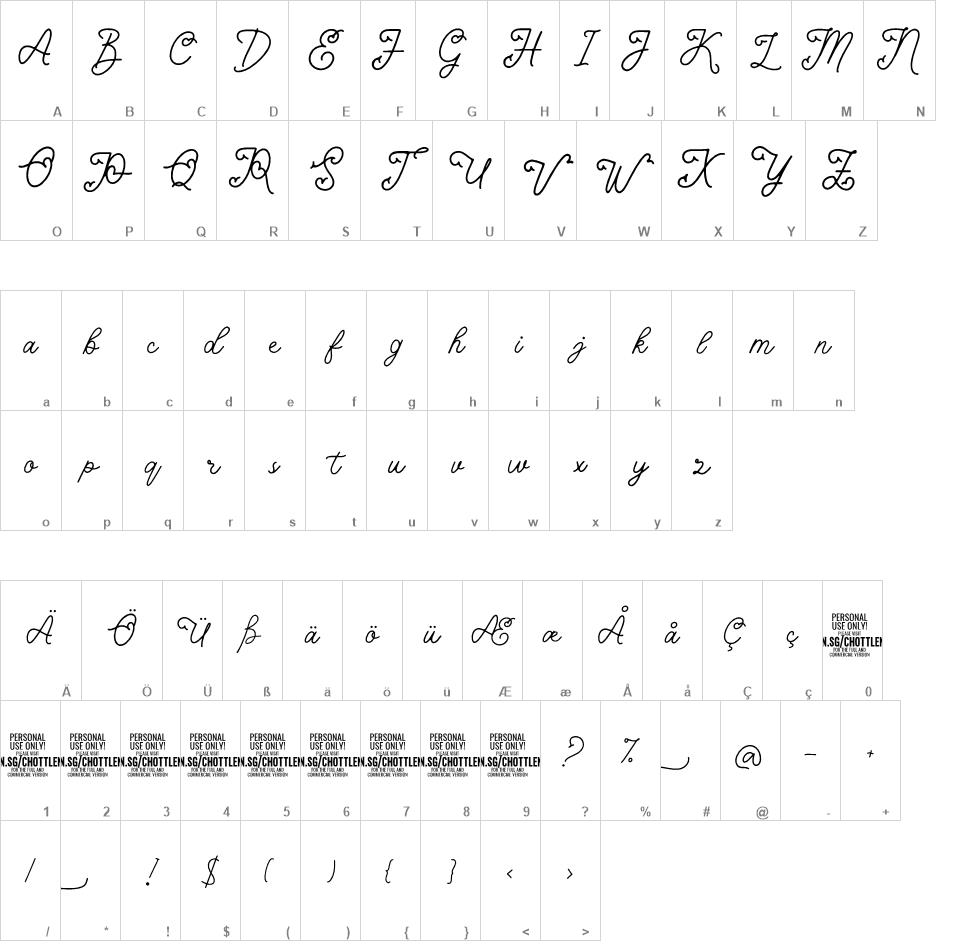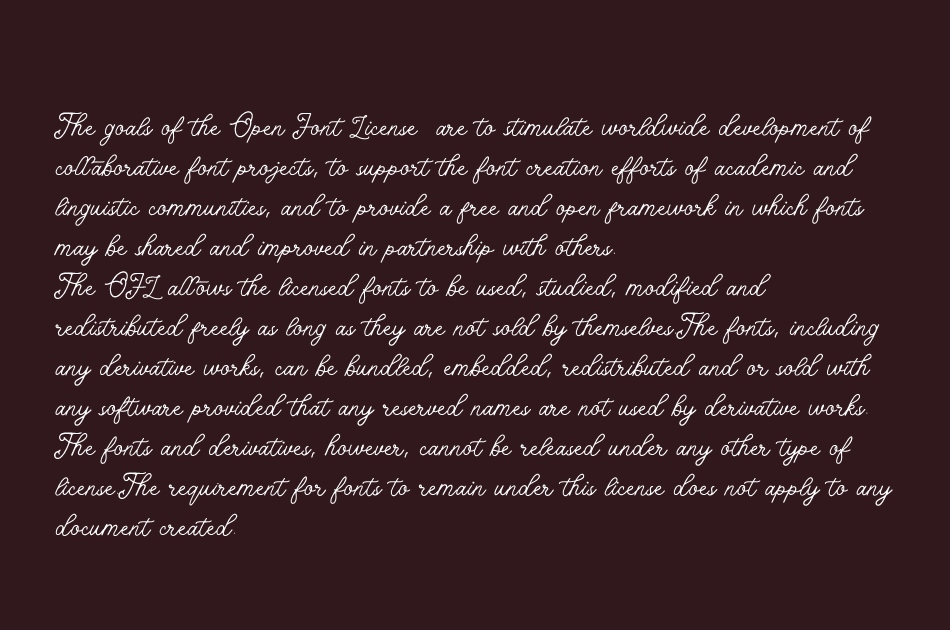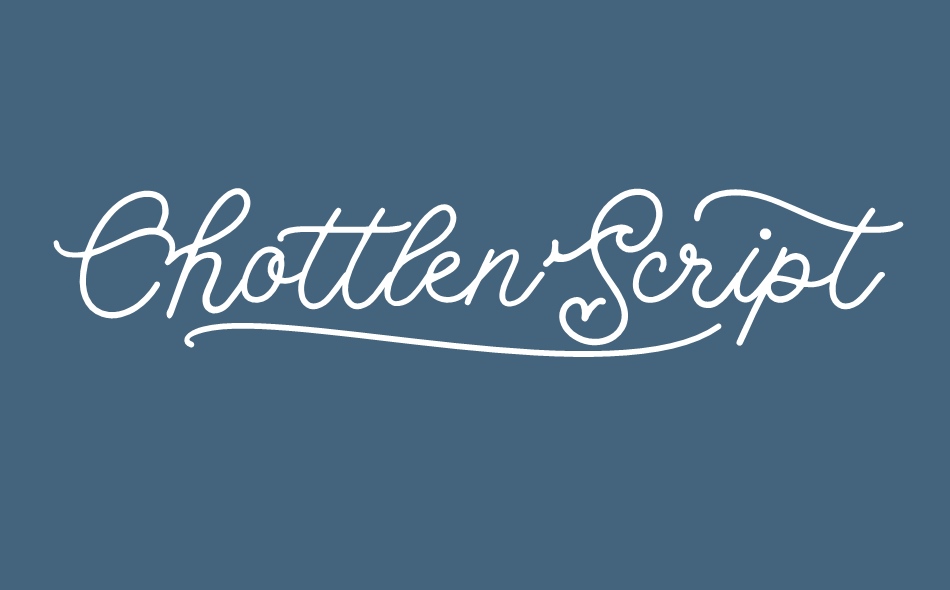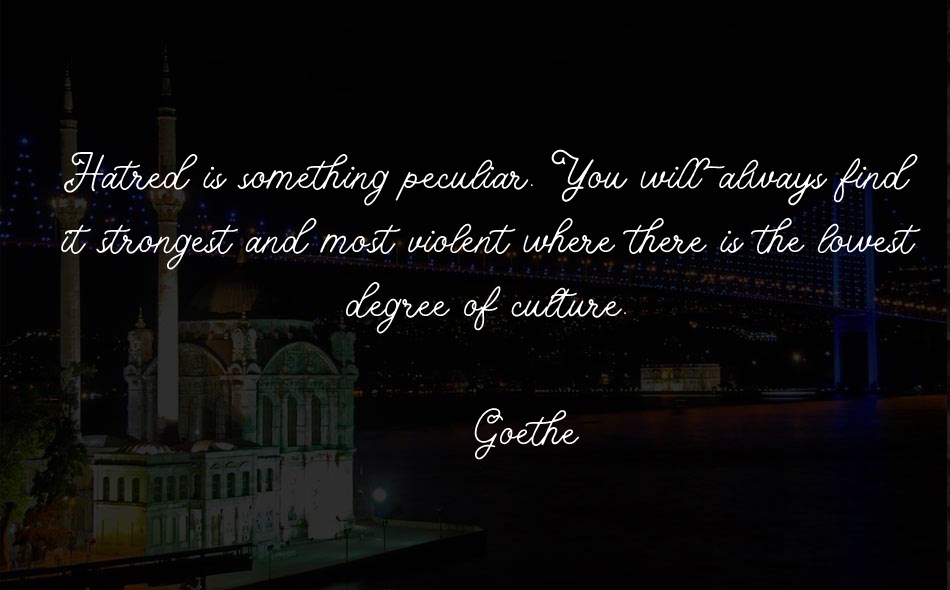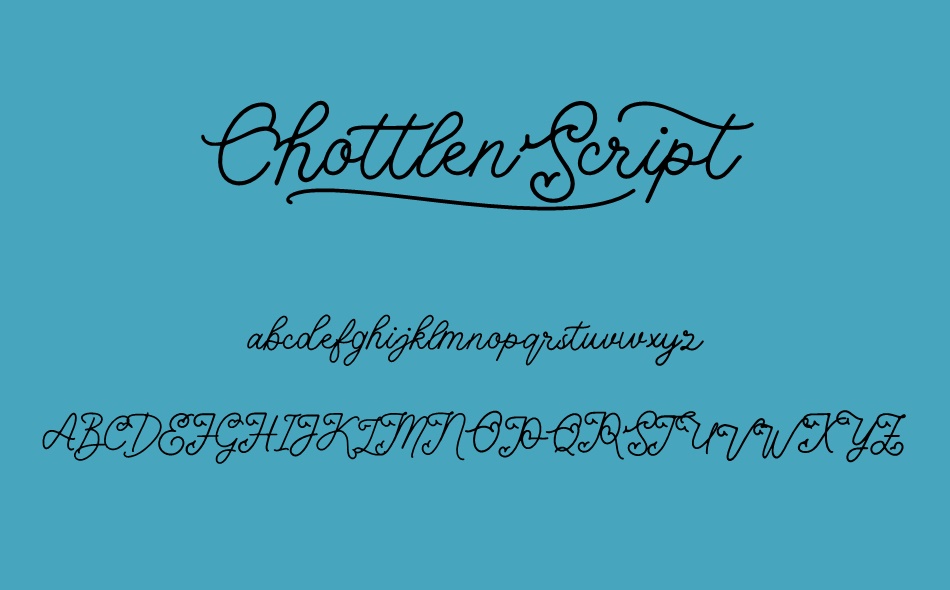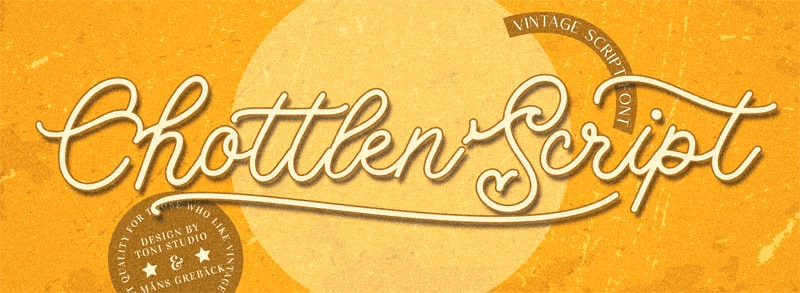
Chottlen Script font
Use * and # after any letter to make a tail.
Example: Signature#
Use _ anywhere in a word to make a swash.
Example: Love_letter
Use multiple underscores to make different swashes.
Example: Hand_____writer
Chottlen Script is a vintage script typeface.
Drawn and created by Toni Studio and Mans Greback in 2022, this cursive lettering has a sympatic character and a down to earth personality, perfect for your retro logotype or a rustic article headline.
The Chottlen Script font family consists of Regular and Italic, and comes with multiple decorative swashy letters.
Use * and # after any letter to make a tail. Example: Signature# Use _ anywhere in a word to make a swash. Example: Love_letter Use multiple underscores to make different swashes. Example: Hand_____writer
The font is built with advanced OpenType functionality and has a guaranteed top-notch quality, containing stylistic and contextual alternates, ligatures and more features; all to give you full control and customizability. It has extensive lingual support, covering all Latin-based languages, from Northern Europe to South Africa, from America to South-East Asia. It contains all characters and symbols you'll ever need, including all punctuation and numbers.